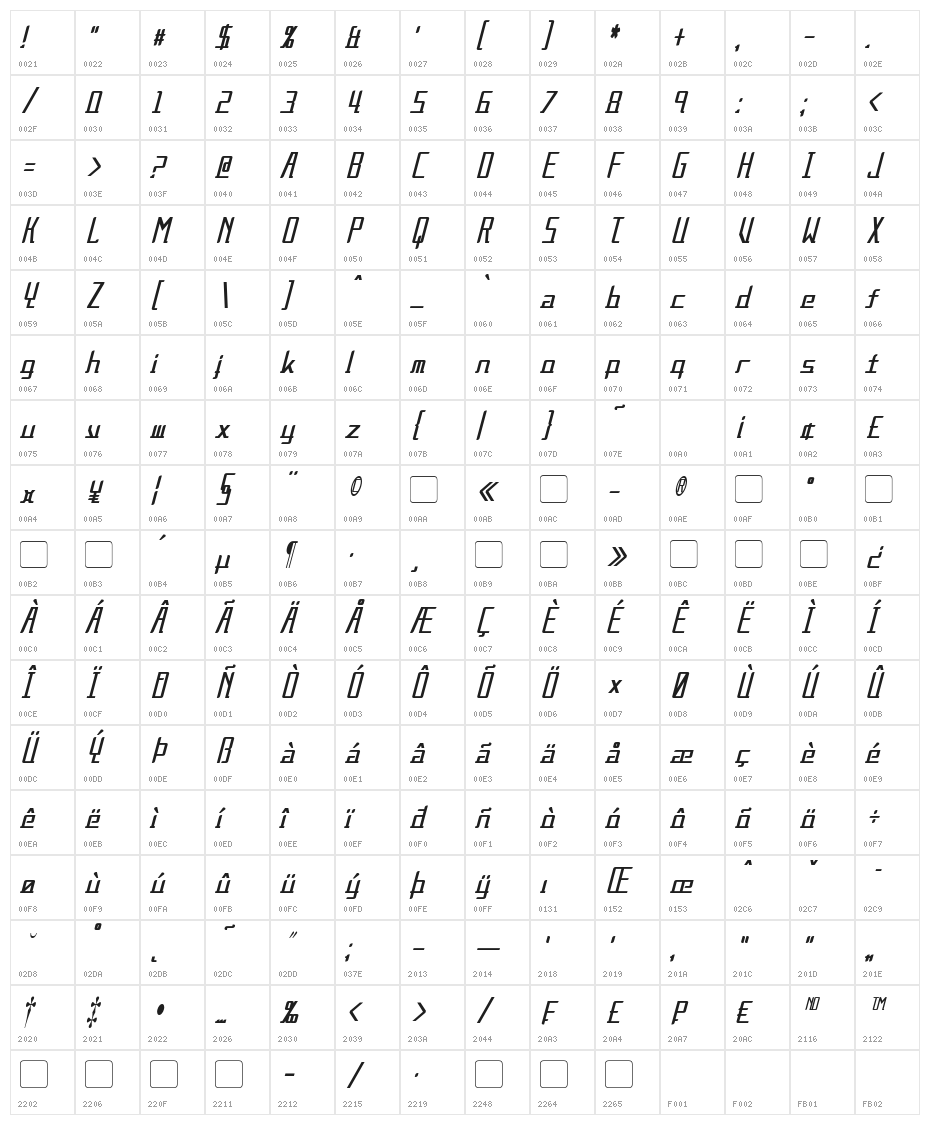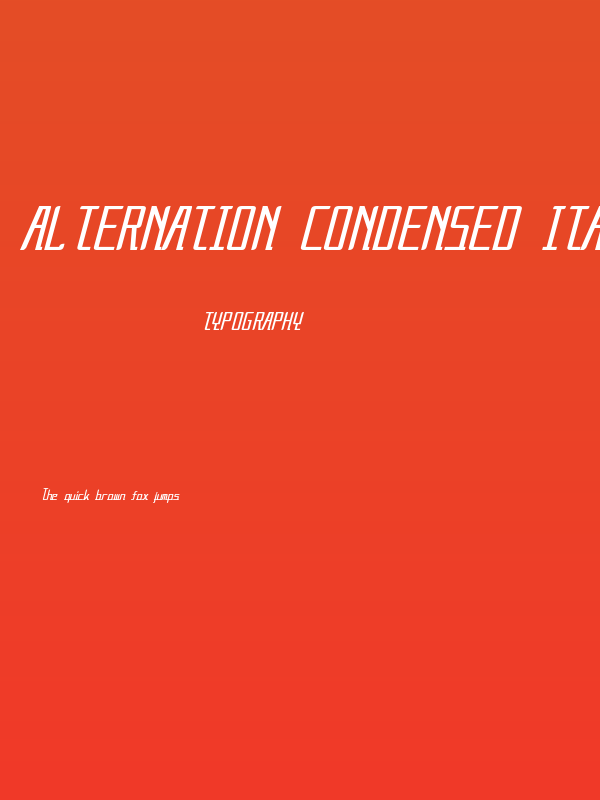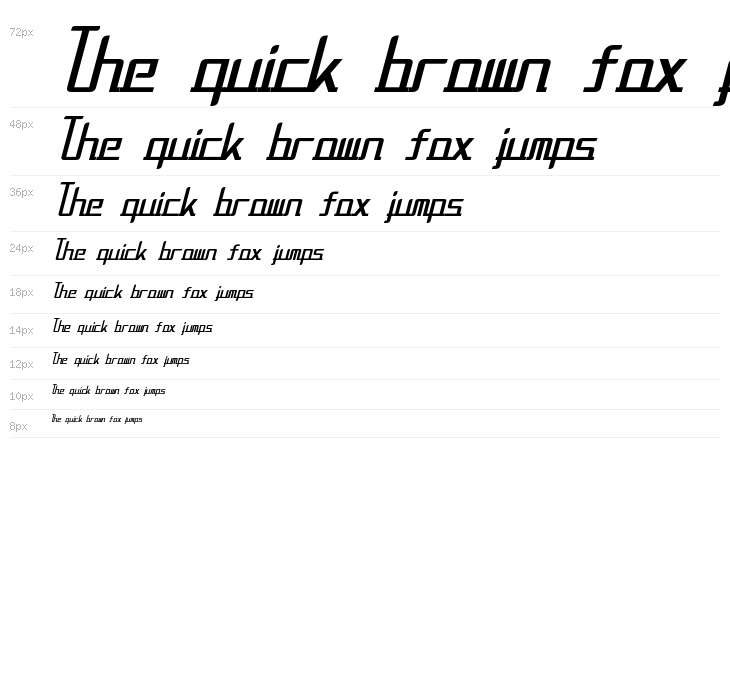
Alternation Condensed Italic Font
Alternation Condensed Italic Description
This font features a sleek, modern design with a condensed and italicized style. The characters are elongated and slightly slanted, giving a sense of motion and dynamism. The strokes are consistent in thickness, providing a uniform appearance across all characters. The uppercase letters are tall and narrow, while the lowercase letters maintain a similar condensed form, enhancing readability. The numerals and special characters follow the same design principles, ensuring a cohesive look. This font is ideal for projects that require a contemporary and stylish touch.
Proposed ProjectsIdeal for branding, advertising, and editorial design where a modern and dynamic appearance is desired.